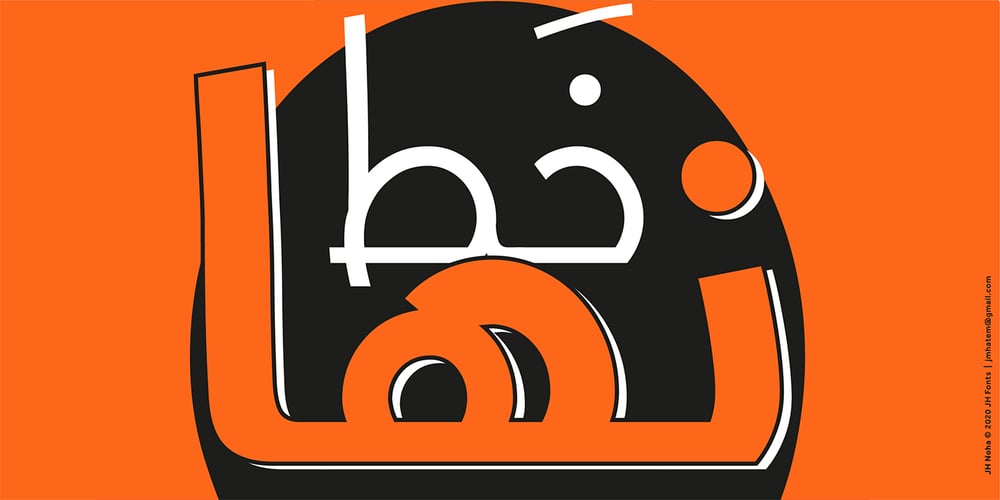
JH Noha Font Family was designed by Joe Hatem and published by JH Fonts. JH Noha contains 4 styles and family package options. JH Noha is a geometric modern Arabic typeface. It includes black, bold, medium and regular weights.